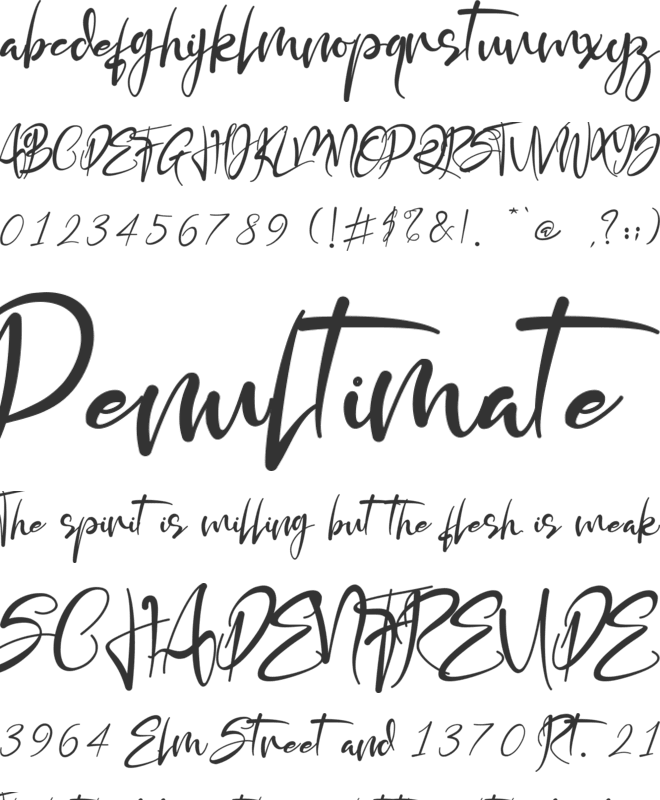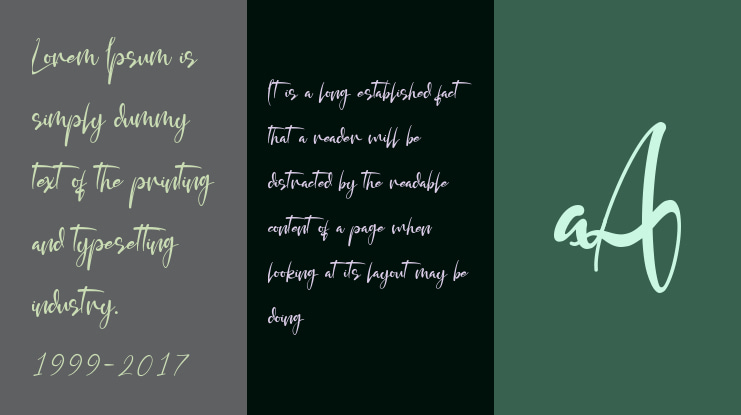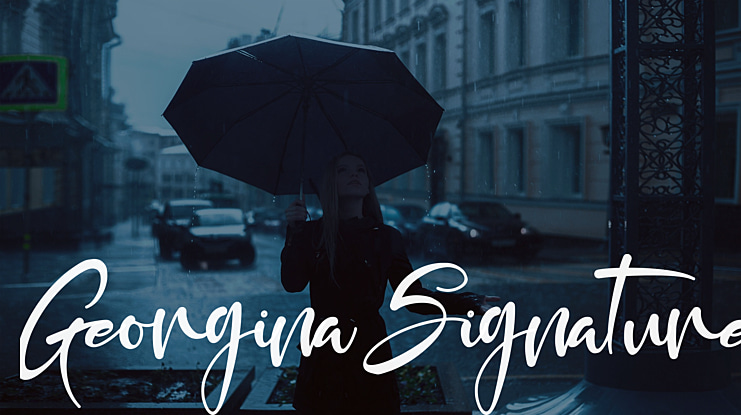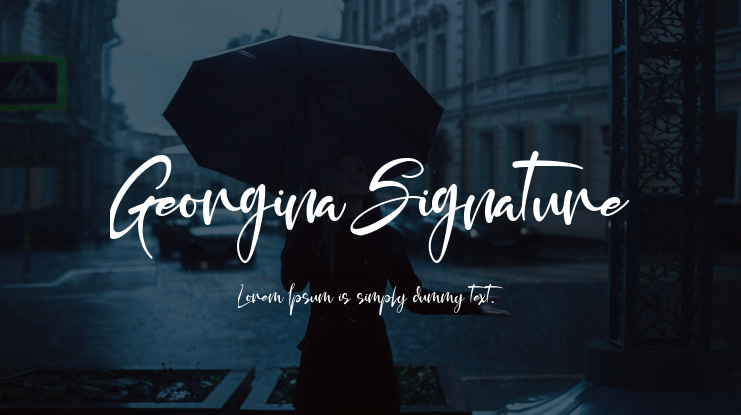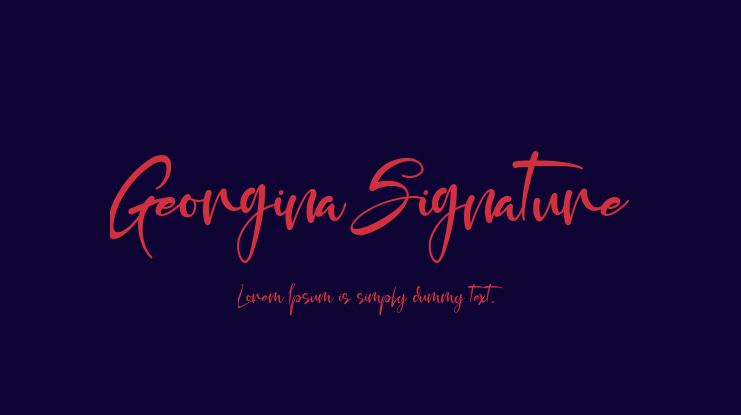
Georgina Signature Font
Georgina Signature is a fashionable handwritten font. Its distinct and well rounded letters make this font a masterpiece. Fall in love with its incredibly versatile style and use it to create spectacular designs!